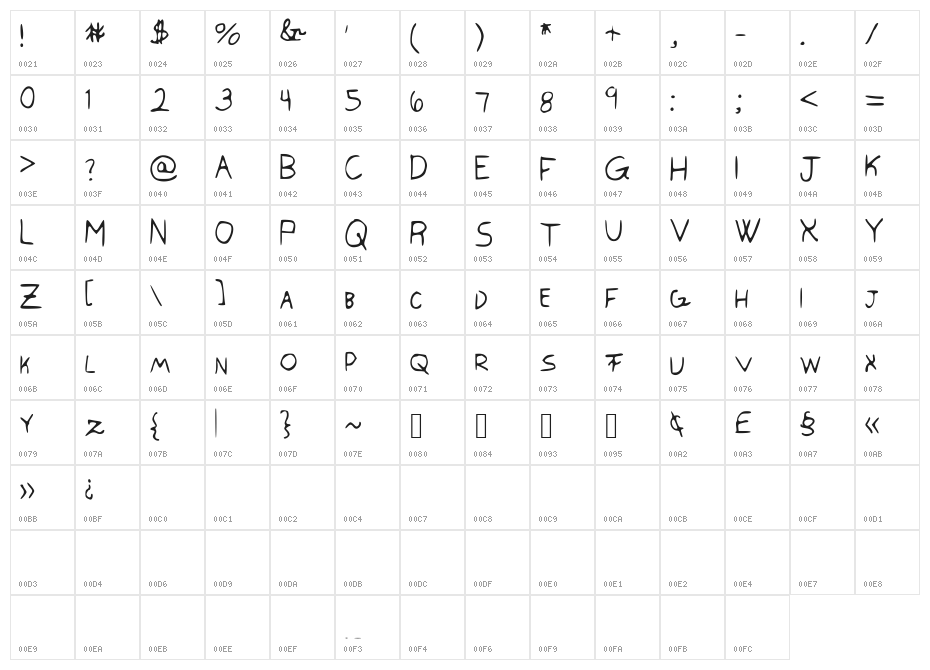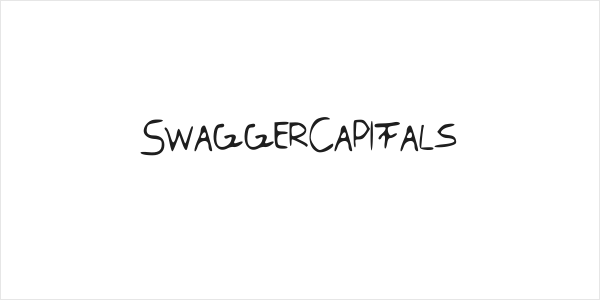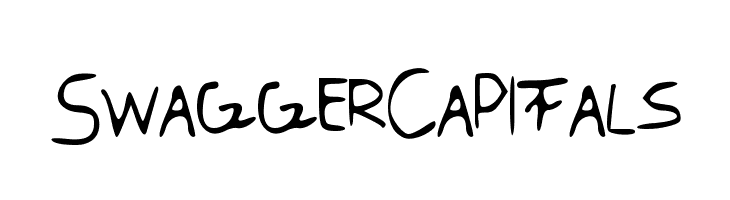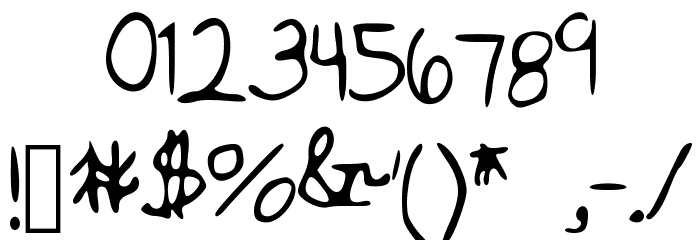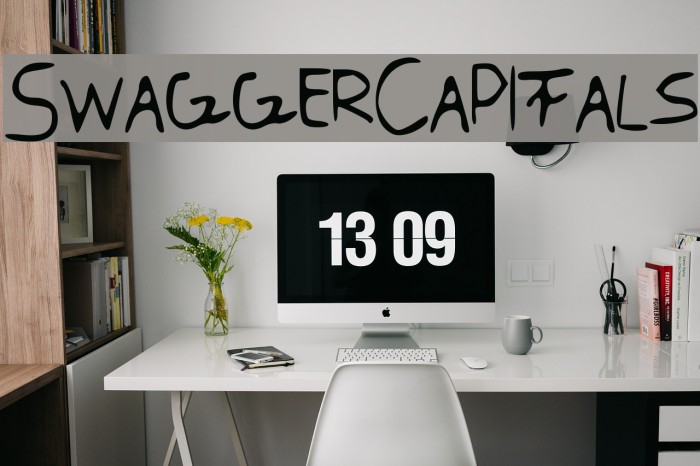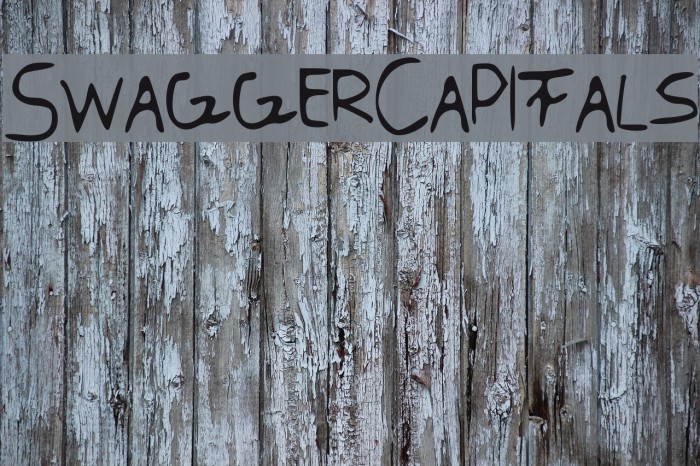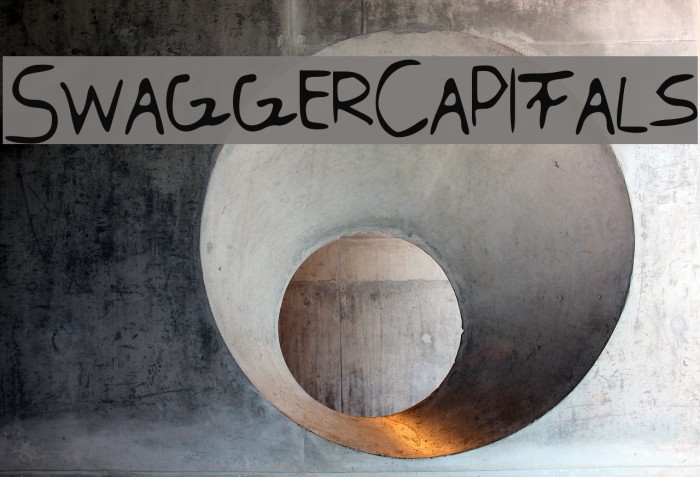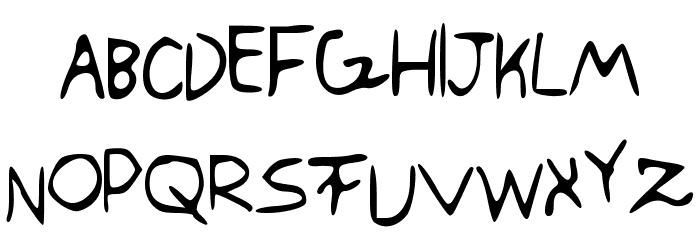
SwaggerCapitals Font
SwaggerCapitals Description
This font exudes a playful and energetic vibe with its hand-drawn, slightly irregular strokes. The characters are bold and dynamic, featuring a unique blend of sharp angles and smooth curves that create a sense of movement. The uppercase and lowercase letters maintain a consistent style, while the numerals and special characters complement the overall aesthetic. The font's informal and lively appearance makes it ideal for projects that require a touch of creativity and fun.
| Proposed Projects | Perfect for children's books, comic strips, playful branding, and creative posters. |